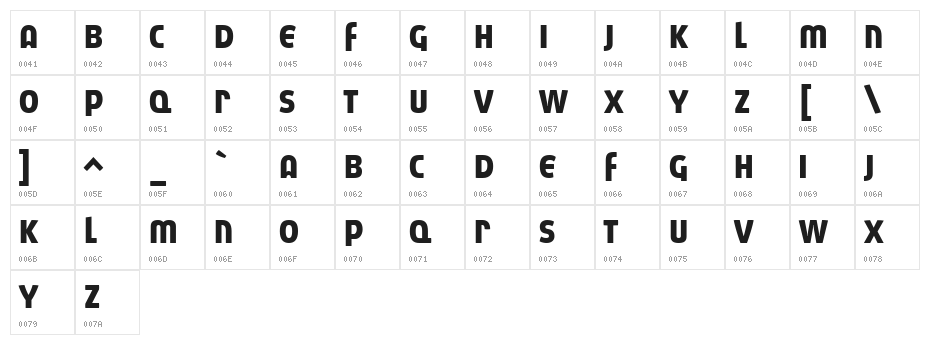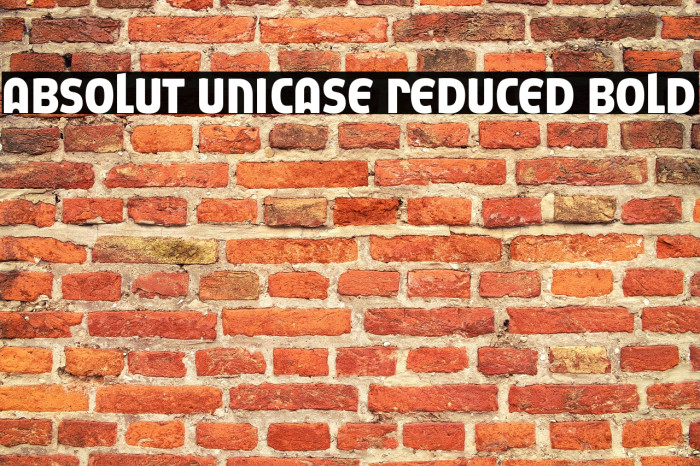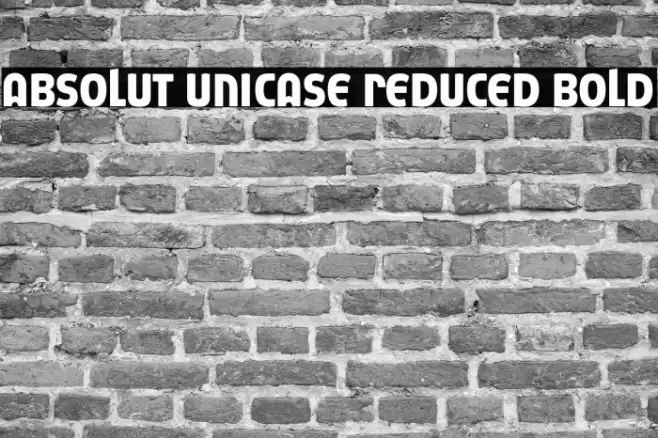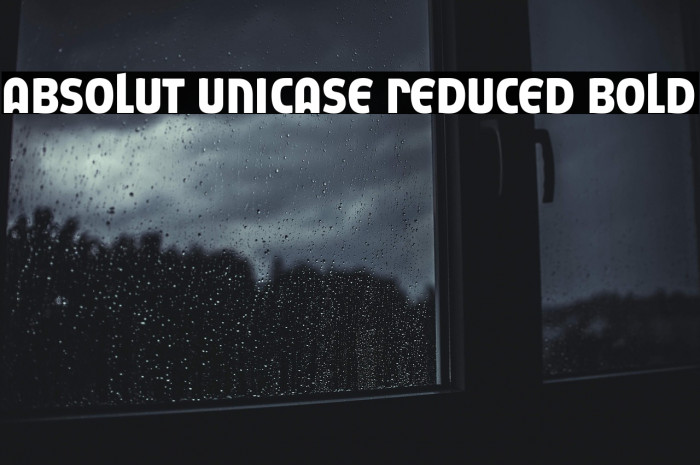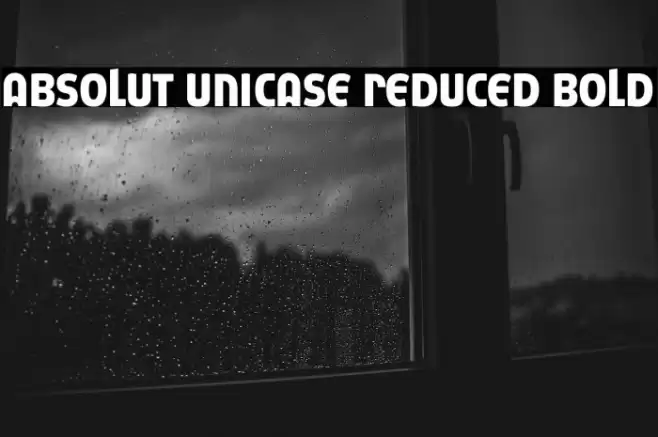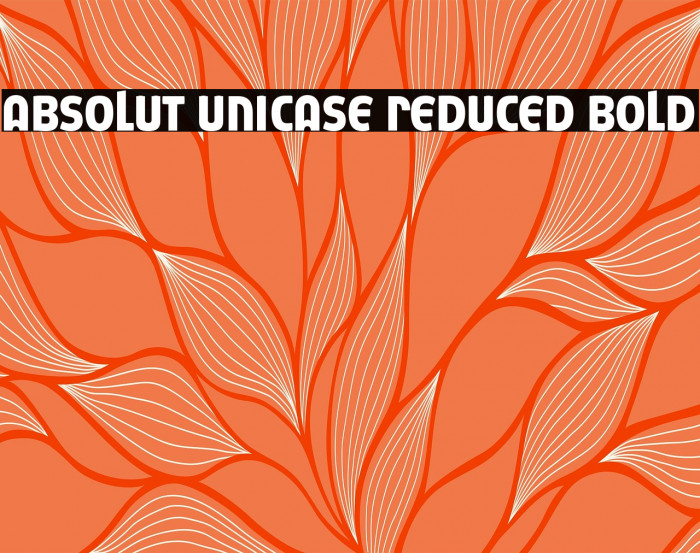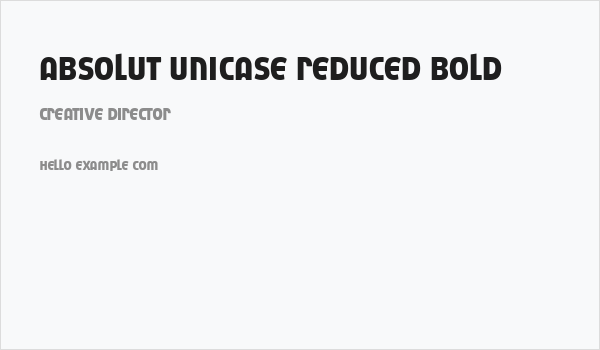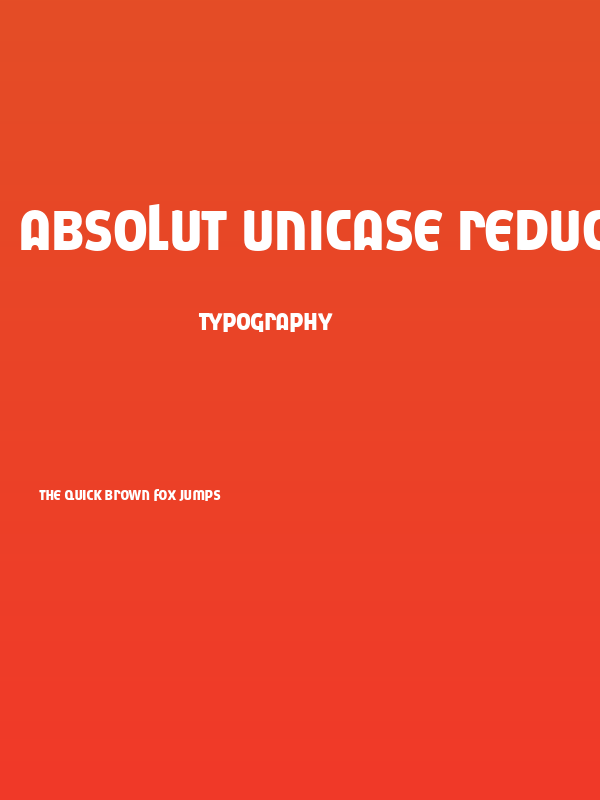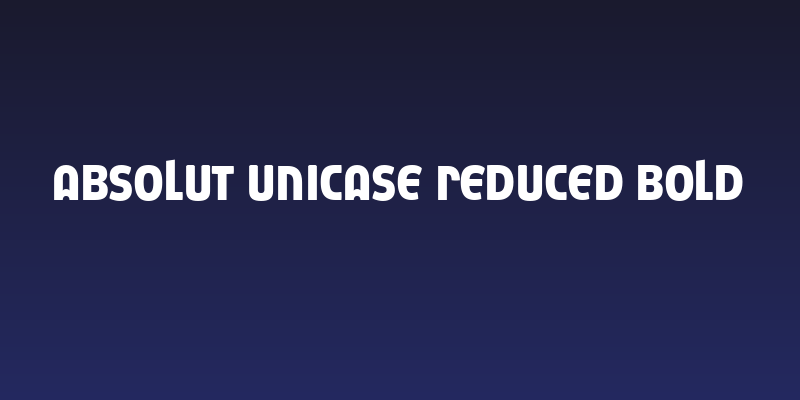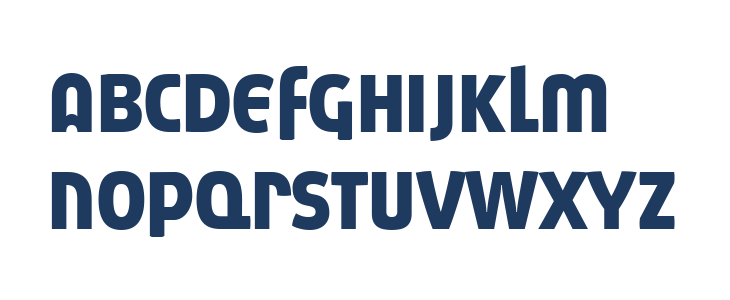
Absolut Unicase Reduced Bold Font
Absolut Unicase Reduced Bold Description
This font features a bold and modern design with a unicase style, where uppercase and lowercase letters share the same height. The characters are robust and have a geometric feel, with rounded edges that soften the overall appearance. The strokes are consistent in thickness, providing a uniform look across all characters. The font's design is clean and straightforward, making it highly legible and suitable for various applications. Its bold nature ensures that it stands out, making it ideal for headlines and attention-grabbing text. The spacing between characters is normal, allowing for easy readability without appearing cramped or overly spaced.
| Proposed Projects | Ideal for branding, advertising, headlines, and poster design. |